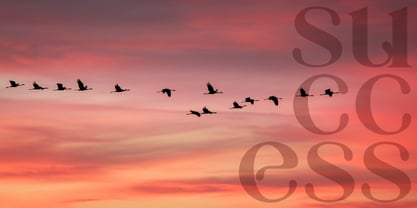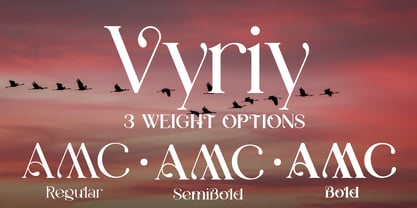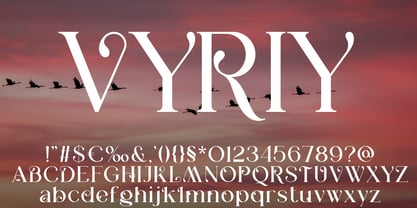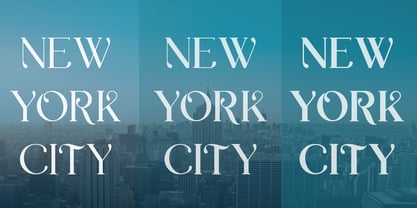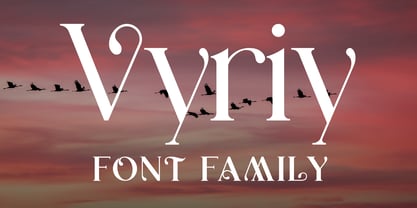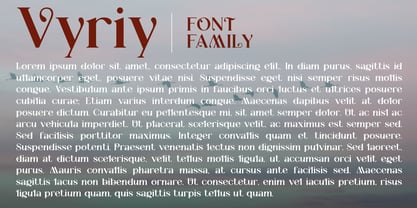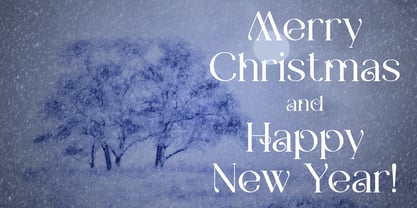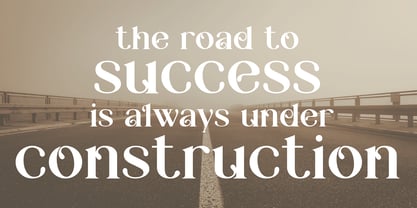
Vyriy
von VladB
Die Schriftfamilie Vyriy wurde von Volodymyr Berla entworfen und von VladB veröffentlicht. Vyriy enthält 3 Stile und Familienpaketoptionen. Mehr über diese Familie
Vyriy is a modern and elegant serif font that features both upper and lower case characters, supporting a wide range of scripts including Latin, Cyrillic, Latin Eastern Europe, Turkish, Baltic, and more, with over 500 symbols available. The Vyriy family includes three font styles: Regular, SemiBold, and Bold, offering versatility for various design needs. This font is ideal for branding, poster creation, and other graphic design projects, as well as for word processing applications, making it a valuable addition to any designer's toolkit.
Designer: Volodymyr Berla
Foundry: VladB
My name is Volodymyr. I have been developing logos and brand elements since 2013. In the process of work, I constantly deal with various fonts, so I gradually came to the decision to independently develop the fonts that I need in my work. Thus, I have developed and continue to develop my collection of fonts. I've been developing fonts since 2019. Currently I design mostly modern and technical typefaces.